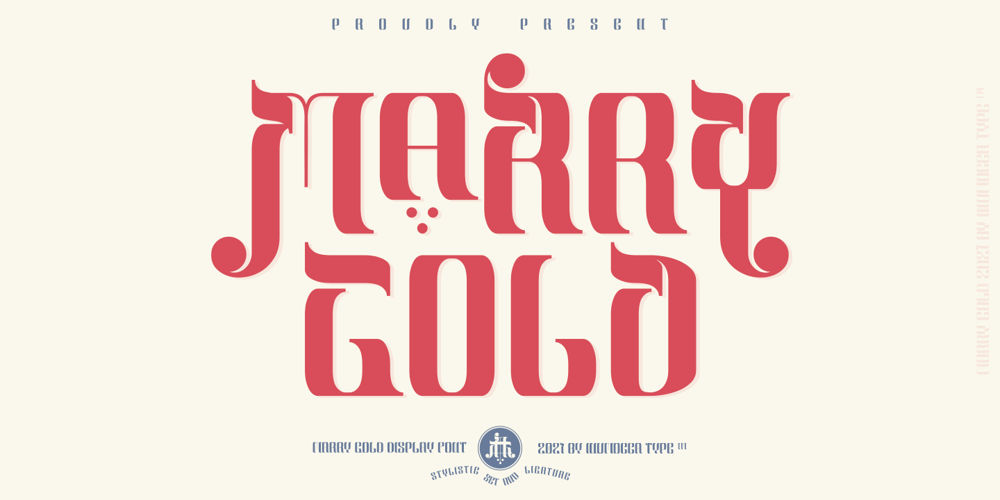
Marry Gold
Marry Gold font
Marry Gold Font Family was designed by Inu Mocca and published by Inumocca. Marry Gold contains 2 styles and family package options. MARRY GOLD is A Retro Display Typeface, Come from 70s Style.The Typeface comes with Stylistic Set and Ligature CombinationsExellent typeface to use for covering your Project, like Branding, Movie Title, Headline Letter, Bookcover or Book Content, Magazine cover, Poster, Quotes Lettering, Logos, and more your project design.- Unique glyphs- Multilingual Characters Support- UPPERCASE- Lowercase- Numeric- Symbol- Punctuation Character- Ligature- Stylistic Set (ss01 – ss06)inumocca type